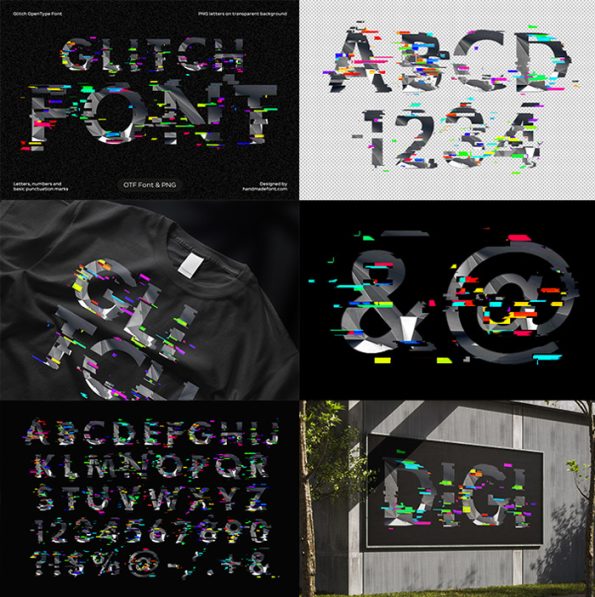
Glitch Font. Sliced Letters With RGB Bleed
Cold grey display capitals sliced into horizontal bands that slip sideways, with cyan, magenta and yellow bleeding out of every seam. The Glitch Font keeps a heavy sans underneath, so a headline survives the corruption. Figures, currency signs and punctuation break up exactly the same way, and dark grounds make the colour hits land.
Signal Loss, Frozen Mid-Frame
In fact, every capital here has been sliced into horizontal bands and shoved sideways. The bands slip by different amounts, so the outline breaks apart and reassembles down the stroke. Bright blocks of cyan, magenta and yellow leak from the seams too, exactly the way a failing screen bleeds colour. The letter underneath stays cold grey, which makes those colour hits land harder. Because each glyph fails differently, repeated letters never line up. That randomness is what stops a long word turning into a pattern.
The Glitch Font Keeps Its Bones
Strip the noise away, of course, and a heavy display sans is still holding everything together. Wide strokes and blunt terminals give the slices something solid to cut through. That matters, since a fully dissolved letter stops being readable. Here the Glitch Font keeps enough mass to survive a headline. Figures, currency signs and punctuation break up the same way. Besides, the damage never wanders far from the baseline.
Animated Glitch Font letters tearing into coloured bands
Screens, Sleeves and Broken Headlines
Music covers want this first, obviously. Gaming graphics, cyberpunk posters, tech event branding, streaming overlays and error-page art all fit. Because the colour blocks read as light rather than ink, dark grounds suit them best. For the pixel-mosaic version of the same idea, open Gits Font instead. Naturally a little of it goes a long way. Set one word this way and leave the rest of the page plain, since the damage only reads as deliberate when it is rare.
What Ships With the Glitch Font
Dark title card for the Glitch Font with the word font sliced apart
Alphabet, numerals and punctuation of the Glitch Font on a dark ground
Framed screen showing a currency symbol from the Glitch Font
Outdoor billboard with a short word set in the Glitch Font
Black t-shirt printed with sliced letters from the Glitch Font
Dark panel with a short line about glitches set in the Glitch Font
Dark poster with a short line about code set in the Glitch Font
Dark book cover carrying a title set in the Glitch Font
Ampersand and at sign of the Glitch Font with colour bleeding from the seams
Letters A to D and figures one to four of the Glitch Font on a transparent background